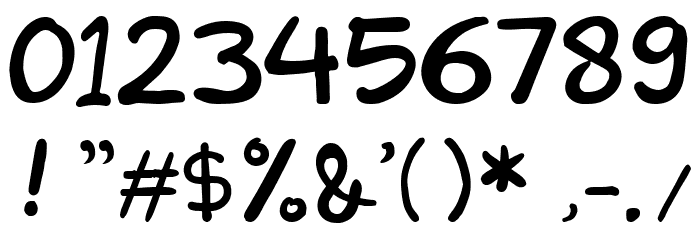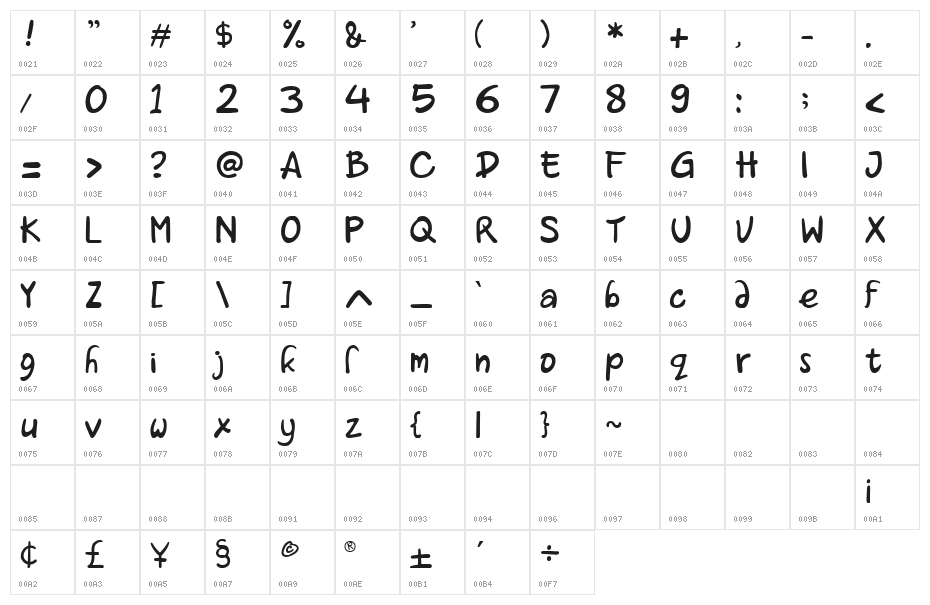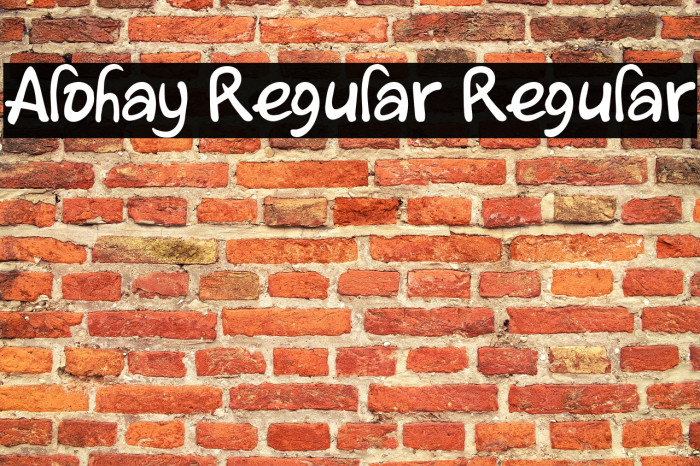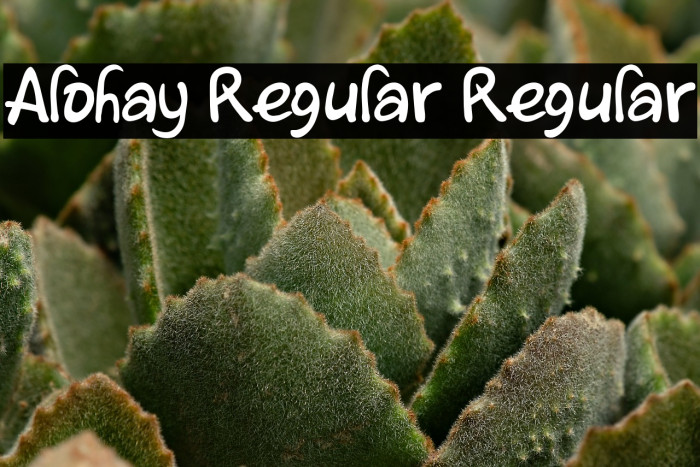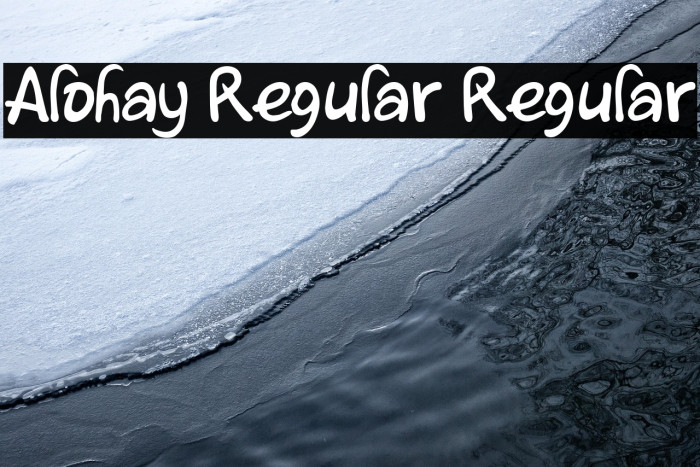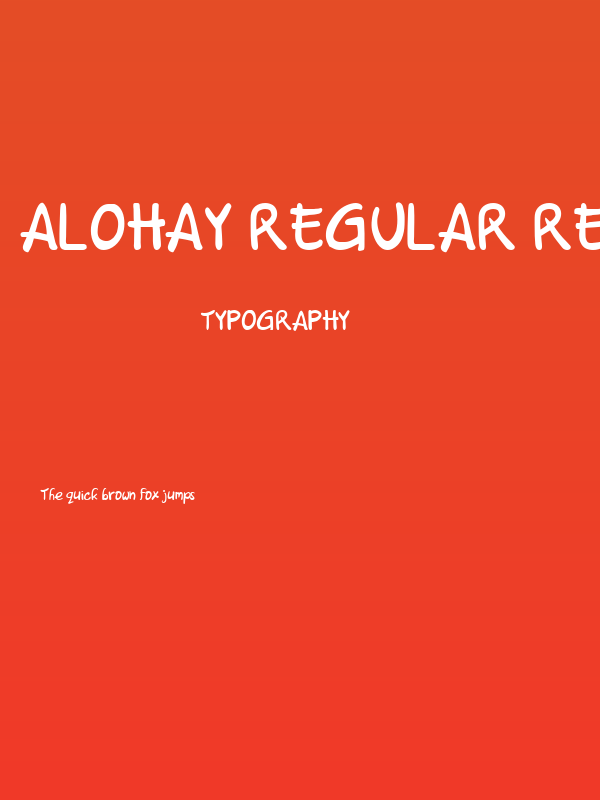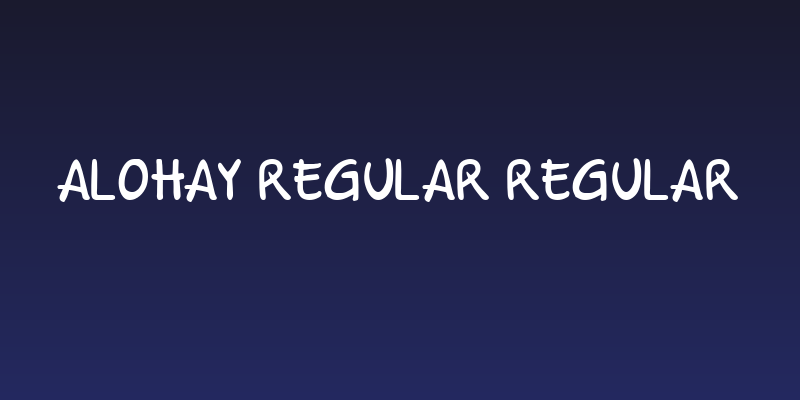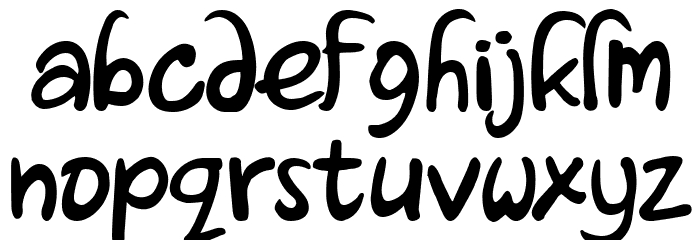
Alohay Regular Font
Alohay Regular Description
This playful and casual font features a handwritten style with a friendly and approachable appearance. The letters are rounded and slightly irregular, giving it a natural and organic feel. The uppercase and lowercase characters maintain a consistent flow, while the numerals and special characters complement the overall design. Its informal style makes it suitable for projects that require a personal touch or a relaxed vibe. The font's unique character shapes and smooth curves make it stand out, adding a touch of whimsy to any design.
| Proposed Projects | Ideal for greeting cards, children's books, casual branding, and social media graphics. |